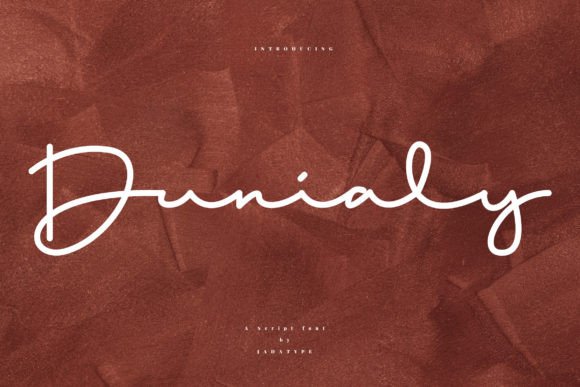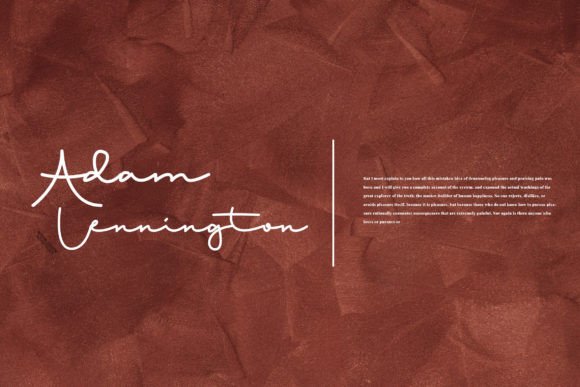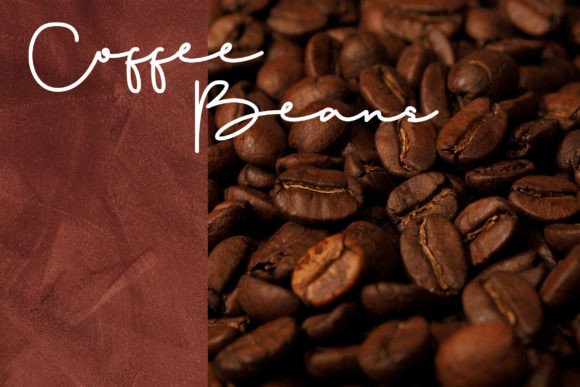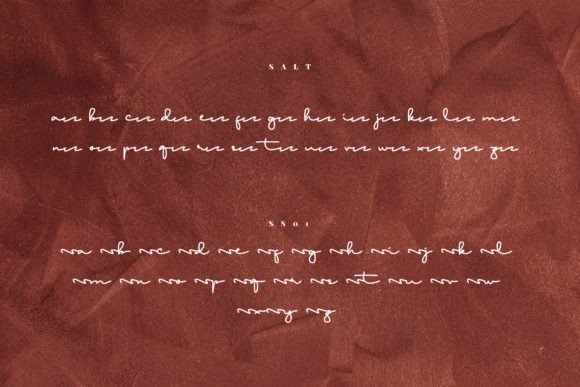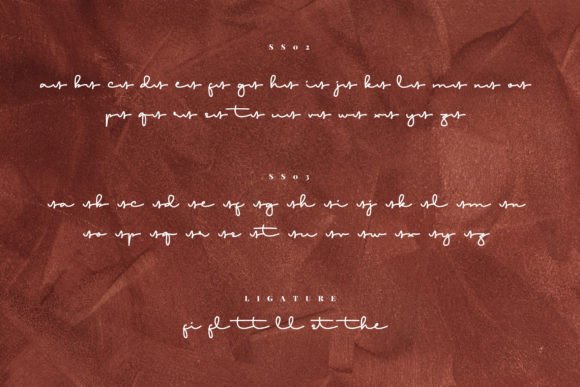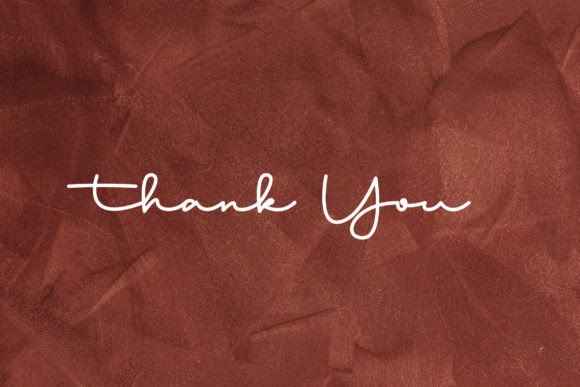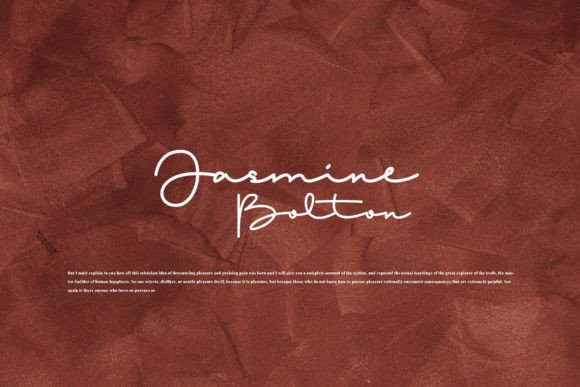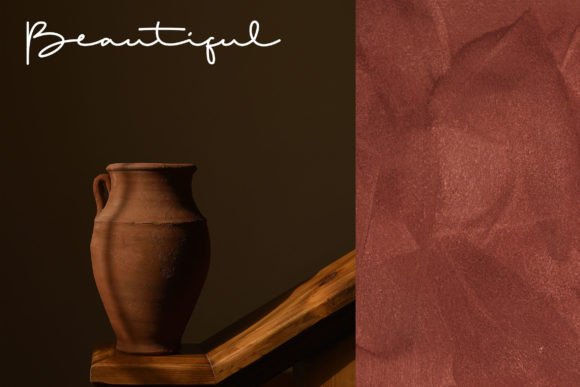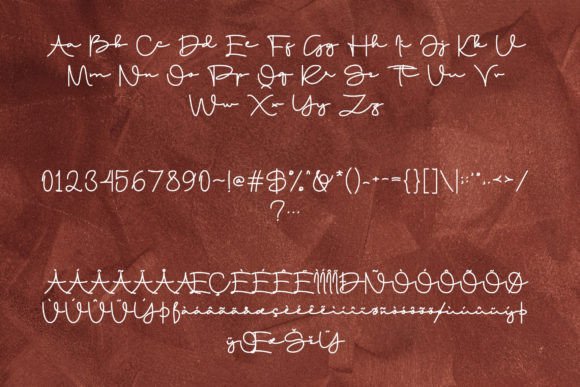
Dunialy Font
About Dunialy Font
Introducing Dunialy, a script font featuring monoline lines that impart the impression of a signature, making it perfectly suited for wordmarks. This font is versatile and can be paired with various branding needs, crafts, invitation cards, events, weddings, and any project that requires an elegant and personalized touch.
The distinctiveness of Dunialy lies in its monoline design, which adds a sense of consistency and simplicity. This makes it an excellent choice for creating wordmarks where each letter seamlessly flows into the next, creating a cohesive and stylish signature-like appearance.
For branding needs, Dunialy serves as a sophisticated and memorable font. Its monoline script gives your brand identity a touch of elegance, making it suitable for various industries.
In crafts and creative projects, Dunialy enhances the visual appeal with its signature-like style. Whether used in digital designs or physical creations, the font adds a personalized and artistic touch.
Invitation cards, especially for events and weddings, benefit from Dunialy’s elegant script. The font imparts a sense of formality and sophistication, setting the tone for a special occasion.
For writing purposes, Dunialy adds a unique flair to your text. Whether used in editorial design or for creating personalized messages, the monoline script brings a touch of elegance and consistency.
Dunialy is designed to be versatile and adaptable to different design contexts. Its clean lines and signature-like style make it a valuable asset for a range of projects where an elegant and personalized touch is desired.
In conclusion, Dunialy is a script font that combines monoline simplicity with a signature-like elegance. Choose Dunialy to elevate your wordmarks, branding, crafts, invitations, and various creative projects, and add a touch of sophistication and personalization to your designs.